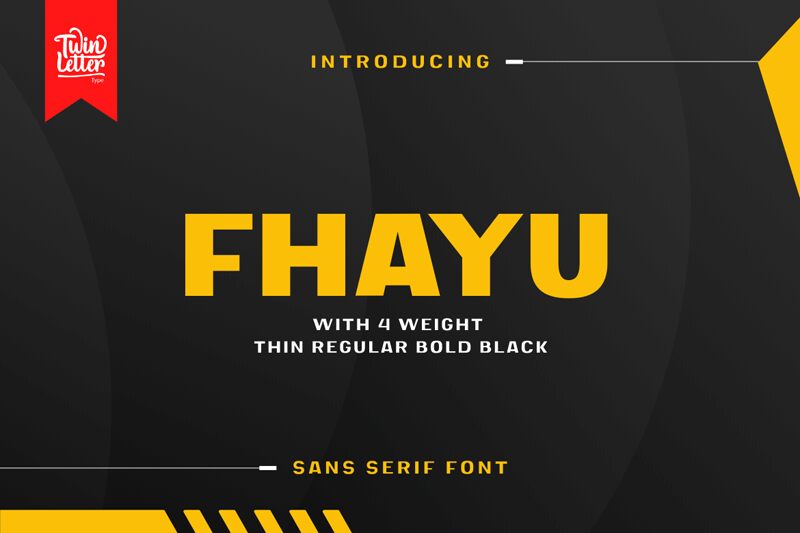
Fhayu Thin is a sleek, modern sans serif font designed by twinletter. With a bold weight and semi-expanded width, this typeface is perfect for adding a contemporary edge to any project. Its minimalist style and clean lines make it highly legible even at smaller sizes, making it ideal for use in branding, advertising, and web design. Use Fhayu Thin to create striking headlines or to add a touch of sophistication to your next presentation or publication. Whether you're designing a logo, website, or poster, Fhayu Thin is the perfect choice for any project that demands a bold yet refined font.
Fhayu Thin